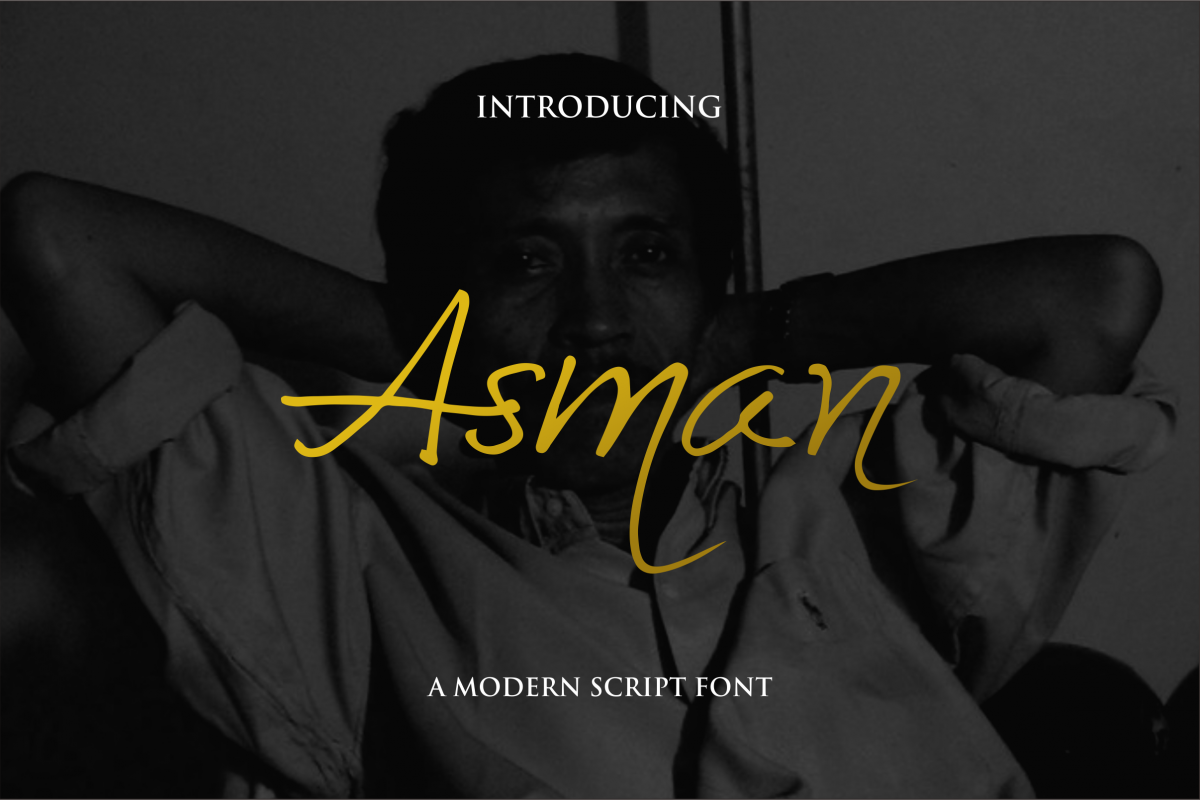
Asman Script
Asman-Regular
Thanks for checking out Asman script! A fabulously fun yet elegant script font with tons of energy, allowing you to create beautiful hand-made typography in an instant. With extra bouncy curves & loops, Asman Script is guaranteed to make your text stand out - perfect for logos, printed quotes, invitations, cards, product packaging, headers and whatever your imagination holds.What's really awesome is that Asman Script comes with a complete set of lowercase alternates, which allows you to create even more authentic custom-feel text. really unique and elegant finishing touches to your script text. ( we will updated every month)Well that just about covers everything, I really hope you enjoy it and please don't hesitate to drop me a message if you have any issues or queries :)